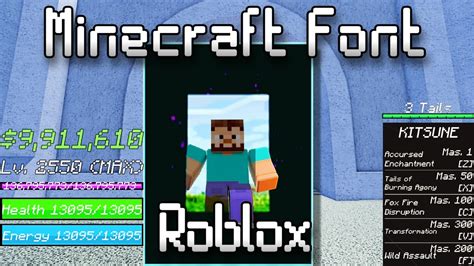
Minecraft Font On Roblox: How To Get It
Minecraft Font on Roblox: How to Get It
Hey guys! Ever wondered how to bring that iconic Minecraft look to your Roblox games? One of the coolest ways to do it is by using the Minecraft font! In this article, we’re diving deep into how you can get that blocky, pixelated font style from Minecraft and implement it into your Roblox creations. Trust me, it’s easier than you think, and it can add a ton of character to your game. So, let’s get started and make your Roblox world a bit more Minecrafty !
Why Use a Minecraft Font in Roblox?
So, why should you even bother using a Minecraft font in Roblox ? Well, there are several awesome reasons! First off, it can create a unique aesthetic that blends two iconic gaming worlds. Imagine having that familiar, pixelated text greeting players in your Roblox game – it’s an instant nostalgia trip for anyone who’s spent countless hours mining and crafting. Think about the possibilities: loading screens, in-game menus, dialogue boxes, and even environmental text can all benefit from that classic Minecraft vibe.
Moreover, using a distinct font like the Minecraft one can significantly enhance your game’s branding. In a sea of generic-looking Roblox games, having a recognizable and unique font helps your game stand out. It communicates a specific theme and style right from the get-go. Plus, if your game has any Minecraft -inspired elements, using the font ties everything together seamlessly, creating a cohesive and immersive experience for your players. It’s all about making your game memorable and giving it that extra edge. Ultimately, incorporating the Minecraft font is a fantastic way to add personality and flair to your Roblox project.
Finding the Right Minecraft Font
Using the Font Effectively in Your Roblox Game
Now that you’ve got the Minecraft font working in your Roblox game, let’s talk about how to use it effectively. Just because you can use it everywhere doesn’t mean you should . Overusing the Minecraft font can make your game look cluttered and overwhelming. Instead, think strategically about where it will have the most impact. Consider using it for important headings, titles, and key dialogue to draw attention to those elements. For longer passages of text, it might be better to stick with a more readable font to avoid eye strain.
Experiment with different sizes and colors to find the perfect balance. The Minecraft font is, by nature, pixelated, so it might not look great at very small sizes. Try increasing the font size to make it more legible. Also, think about the color palette of your game. The Minecraft font often looks best in colors that complement the overall aesthetic of your game. If you’re going for a retro vibe, consider using classic 8-bit colors. If your game is more modern, you might want to experiment with gradients or more subtle shades. Also, think about adding a subtle outline or shadow to the text to make it stand out against the background. Effective use of the Minecraft font can really enhance the visual appeal of your Roblox game, but it’s all about finding the right balance and using it in a way that complements your game’s overall design.
Final Thoughts
So, there you have it! Adding the Minecraft font to your Roblox game is a fantastic way to inject some retro charm and unique flair. By following these steps, you can easily incorporate that iconic pixelated look into your game’s UI and text elements. Just remember to download your font from a reputable source, install it correctly in Roblox Studio, and use it strategically to enhance your game’s overall design. And don’t be afraid to explore other fonts to find the perfect match for your project. With a little creativity, you can make your Roblox game stand out from the crowd and create an immersive experience that players will love. Happy font hunting, and happy game developing!